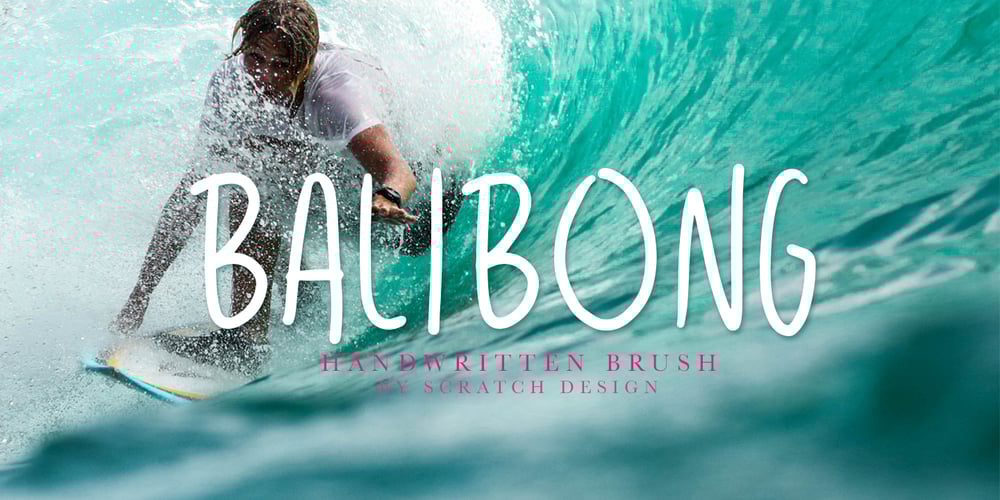
Balibong
Balibong font
Balibong Font Family was designed by Gitayogi Irhandi and published by Scratch Design. Balibong contains 1 styles and family package options. Balibong is a handwritten font with a casual look and vintage style. Balibong will be useful in your designs such as quotes, invitations, menu designs, logos, branding, clothing and some design for in a casual or vintage concept. Balibong also has Multi-Lingual support characters.